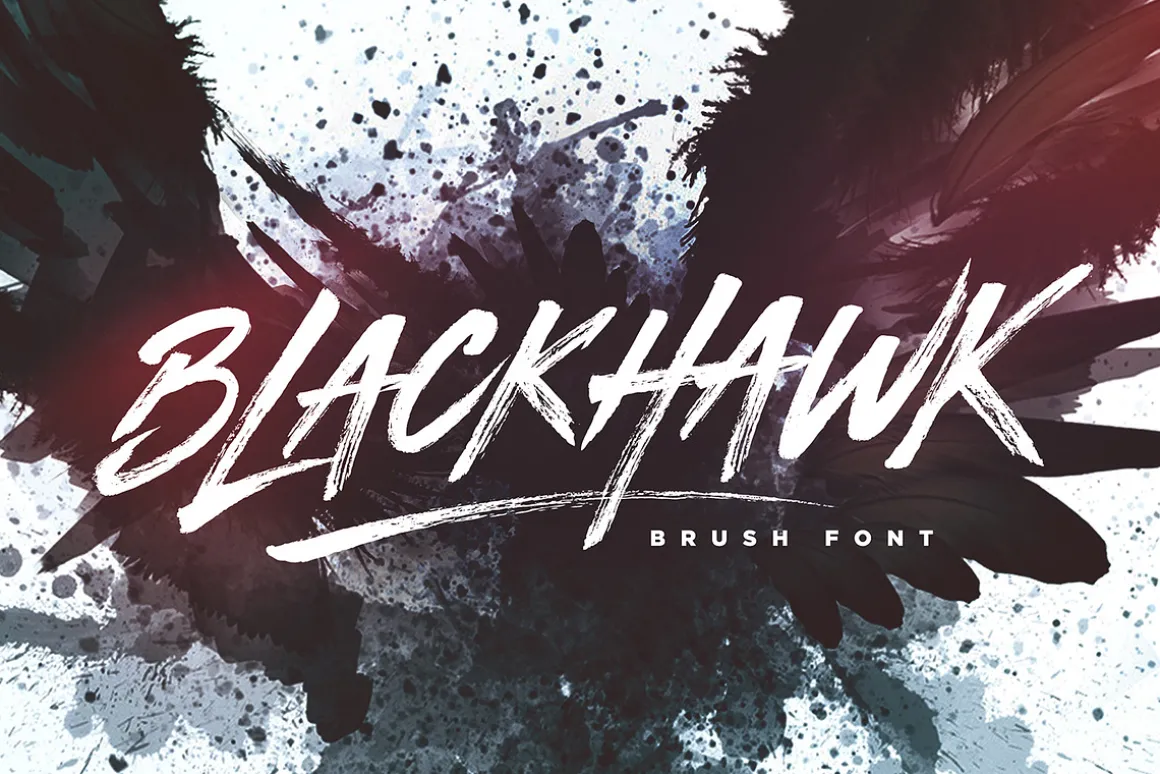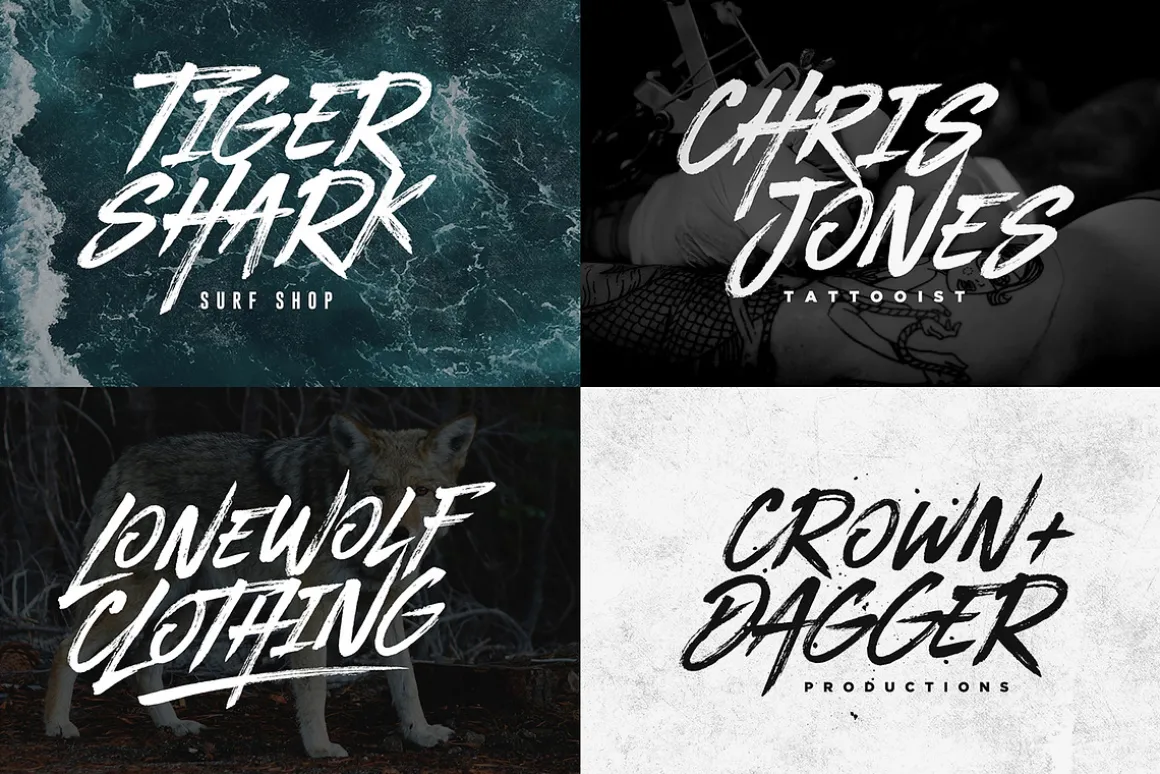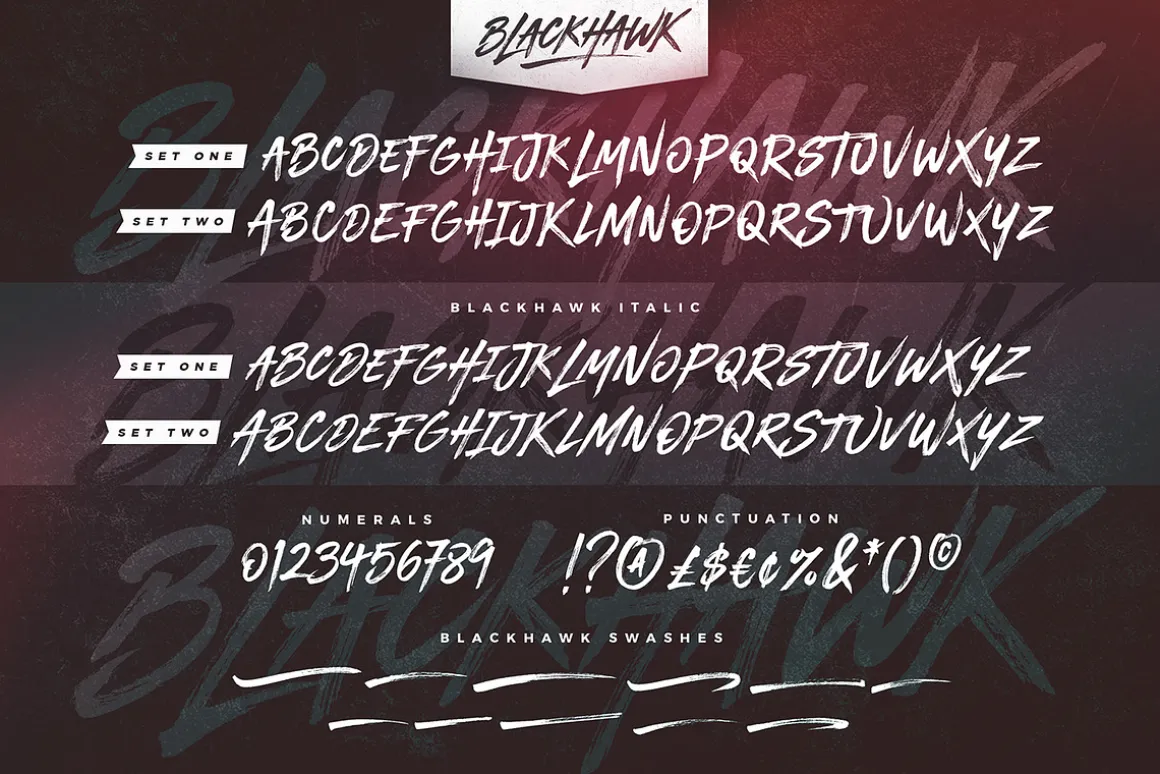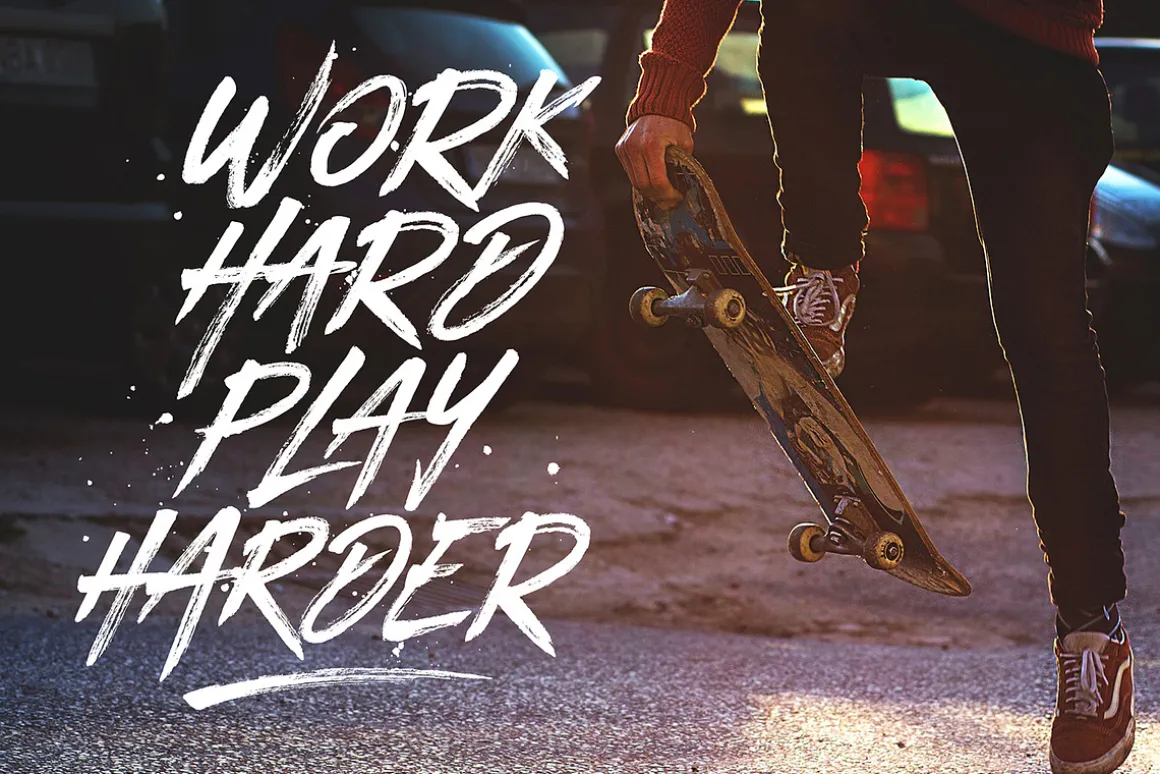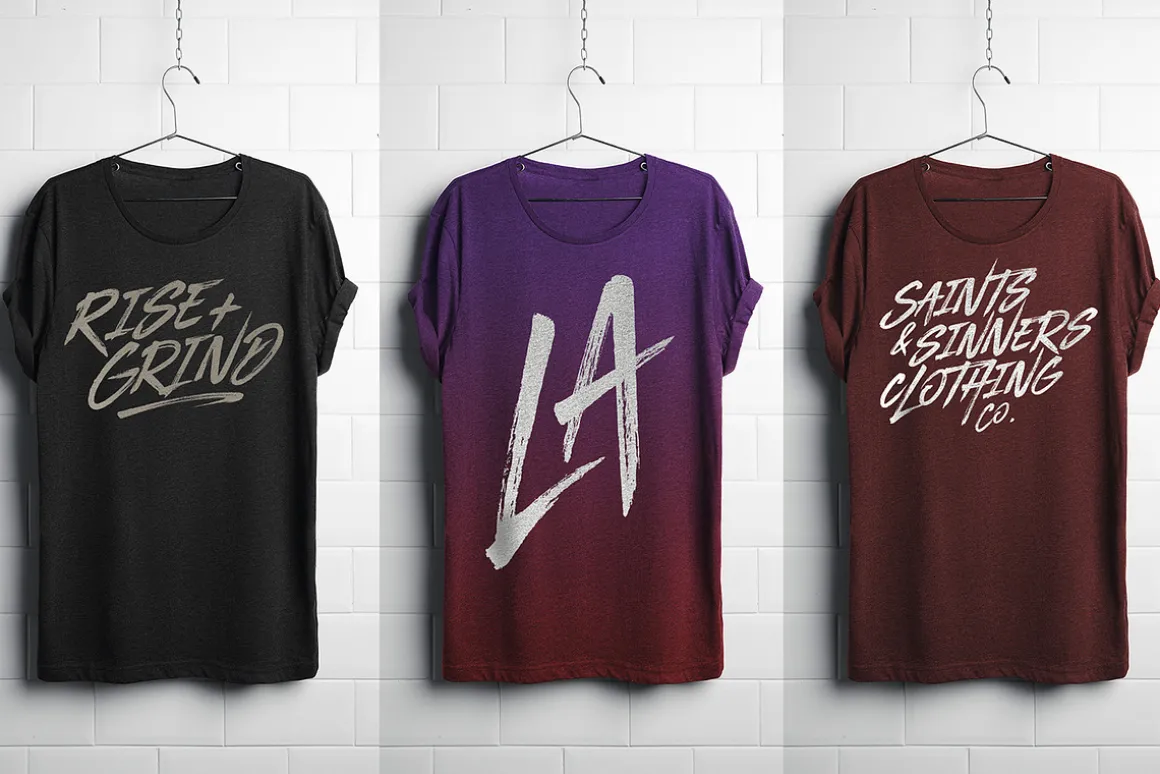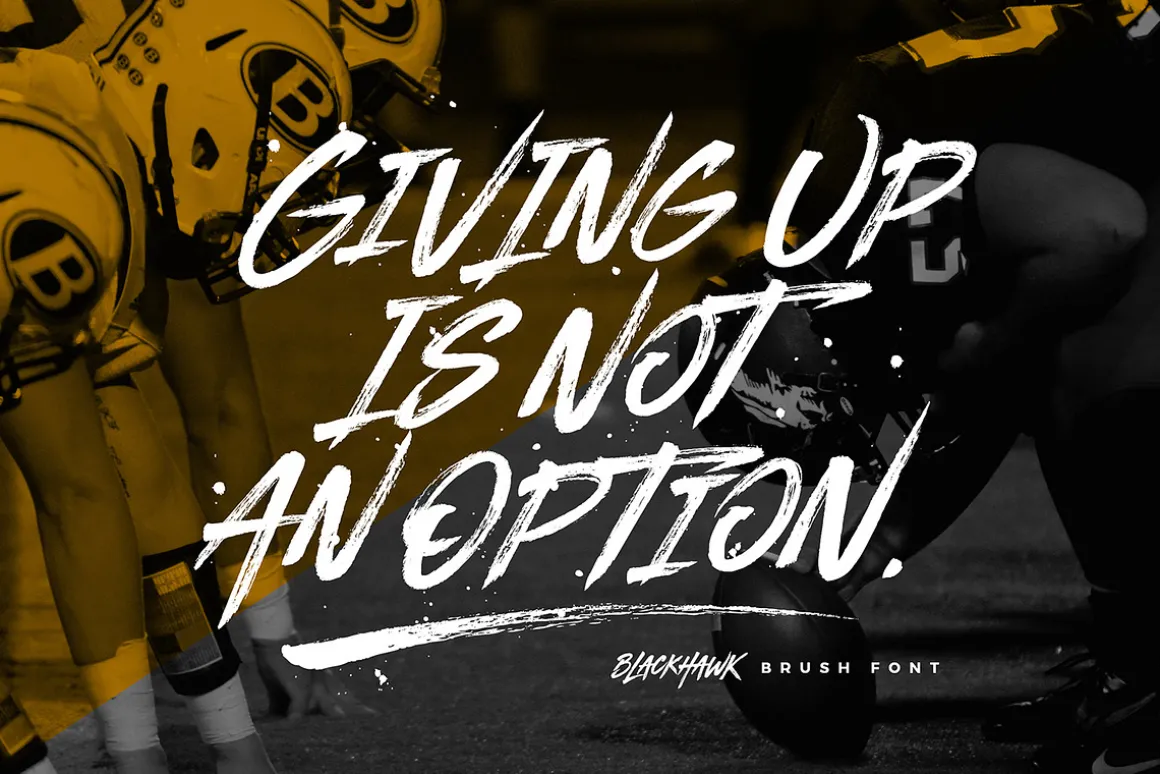
BLACKHAWK is a supercharged, street-wise brush font bursting with energy. With extra attention to quick strokes and sharp details, BLACKHAWK is guaranteed to deliver an unapologetically loud & fast-paced message; ideal for logos, apparel, quotes, product packaging, or anything which needs a typographic turbo-boost.
- BLACKHAWK ~ A hand-made, all-capitals brush font which has a complete set of alternate A-Z characters. Simply switch between upper & lower case to access the alternates. (Tip: Try mixing up both upper and lowercase characters in a word to achieve the best text layout).
- BLACKHAWK Italic ~ A slanted version of the regular font, creating faster movement in the characters.
- BLACKHAWK Swashes ~A bonus set of 11 swashes and 4 paint-splatters. Simply select this font and type any A-O character to create one of the bonus elements.